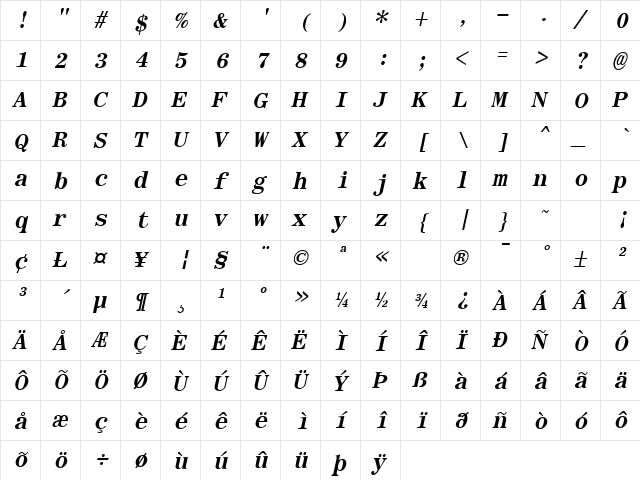
GE Romulus FW Bold Italic
Design Context for GE Romulus FW Typeface
GE Romulus FW offers clean, dependable letterforms without strong stylistic allegiance, making it a practical choice for designers who need flexibility. The slanted form adds forward momentum and visual energy. The heavy weight commands attention and anchors typographic hierarchies.
Pro Tip: Use GE Romulus FW for emphasis, pull quotes, and subheadings where its slanted energy can add rhythm to the layout.